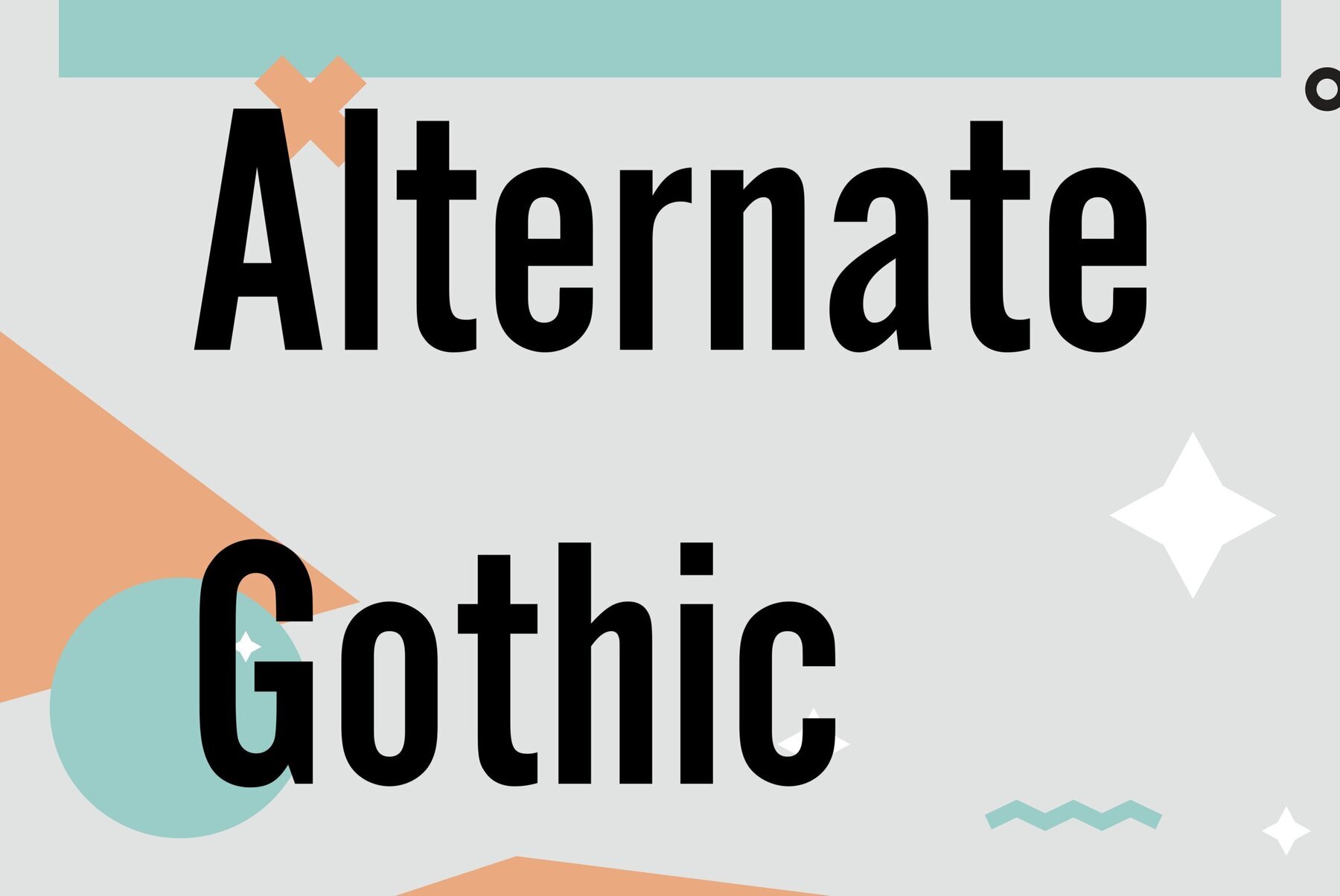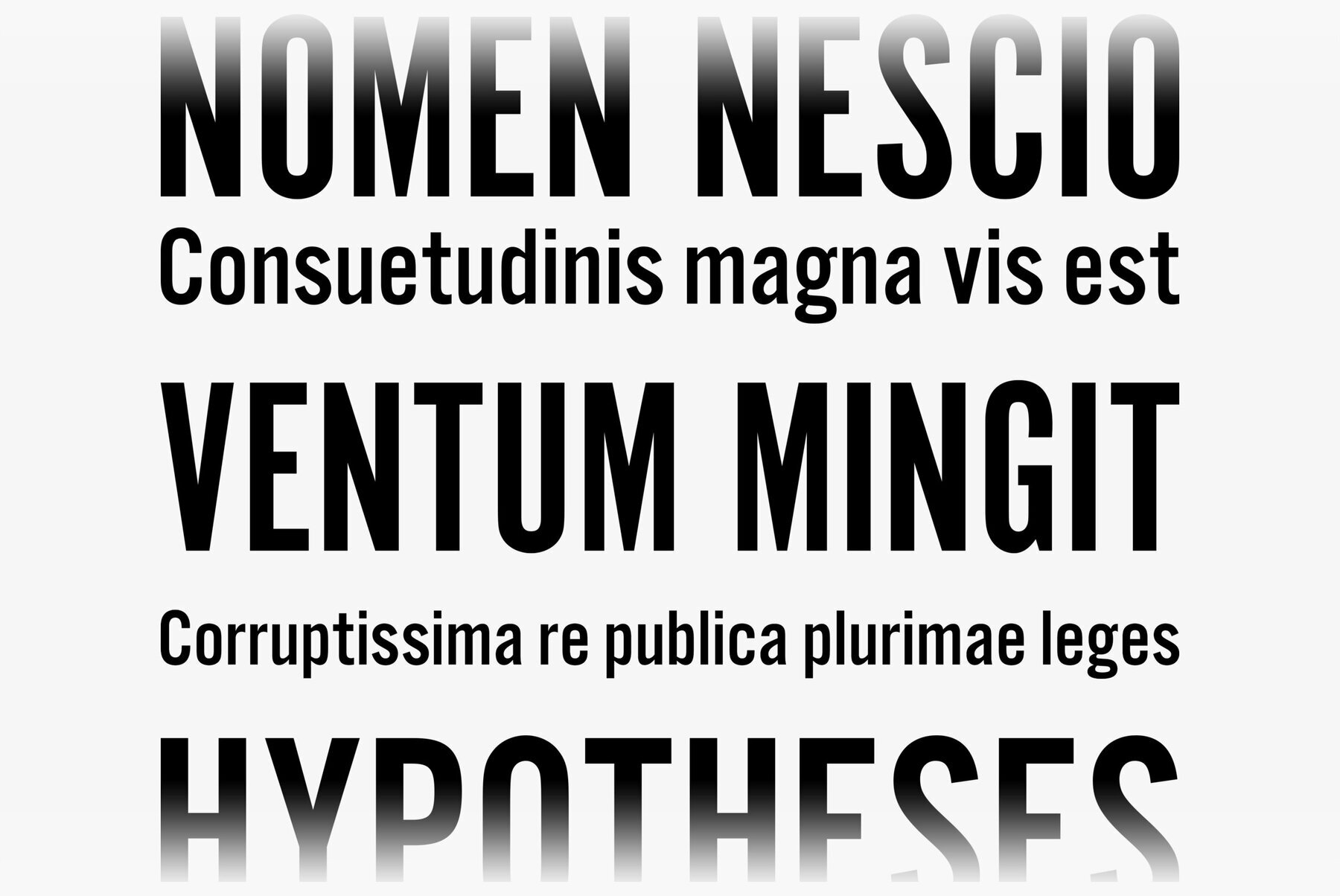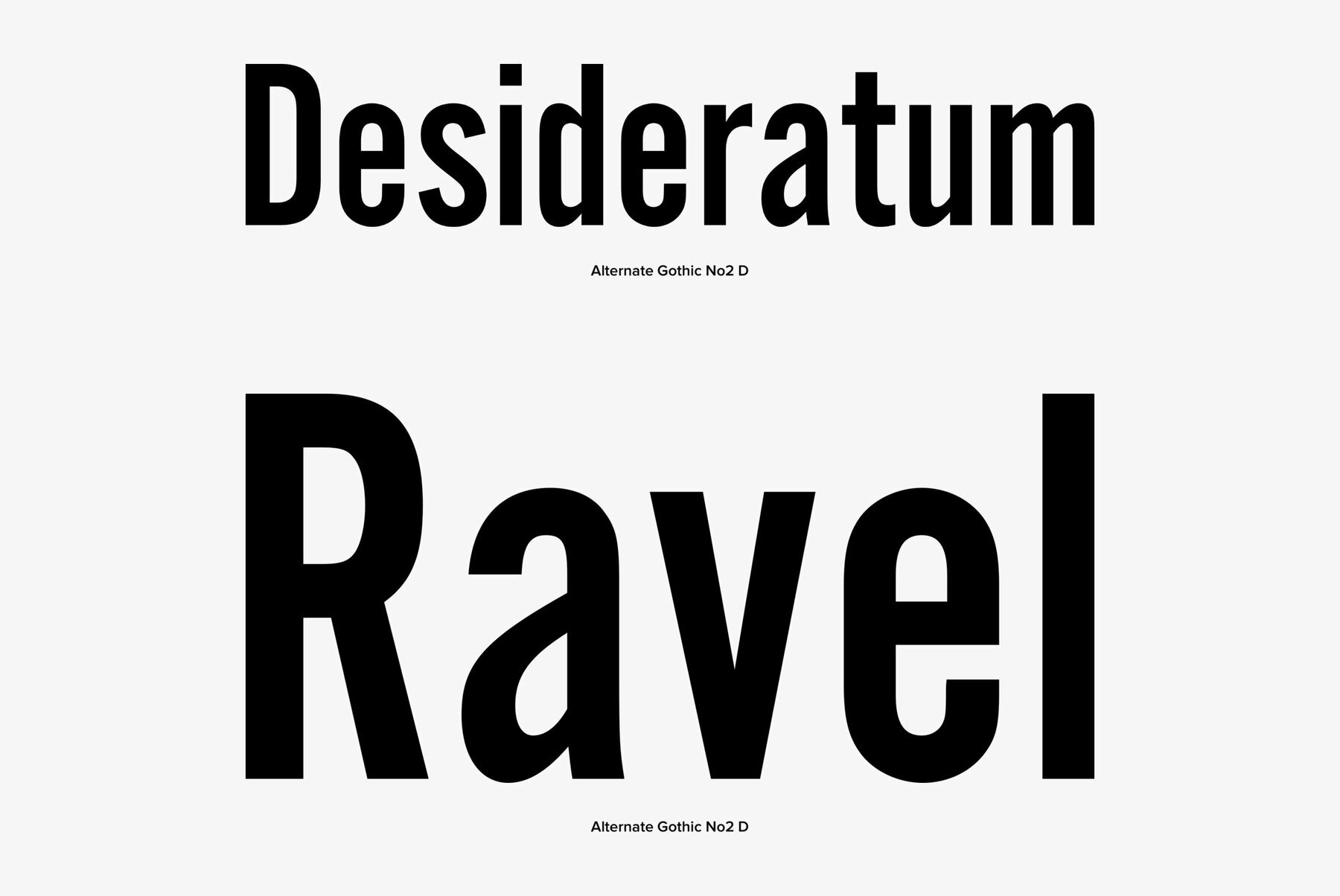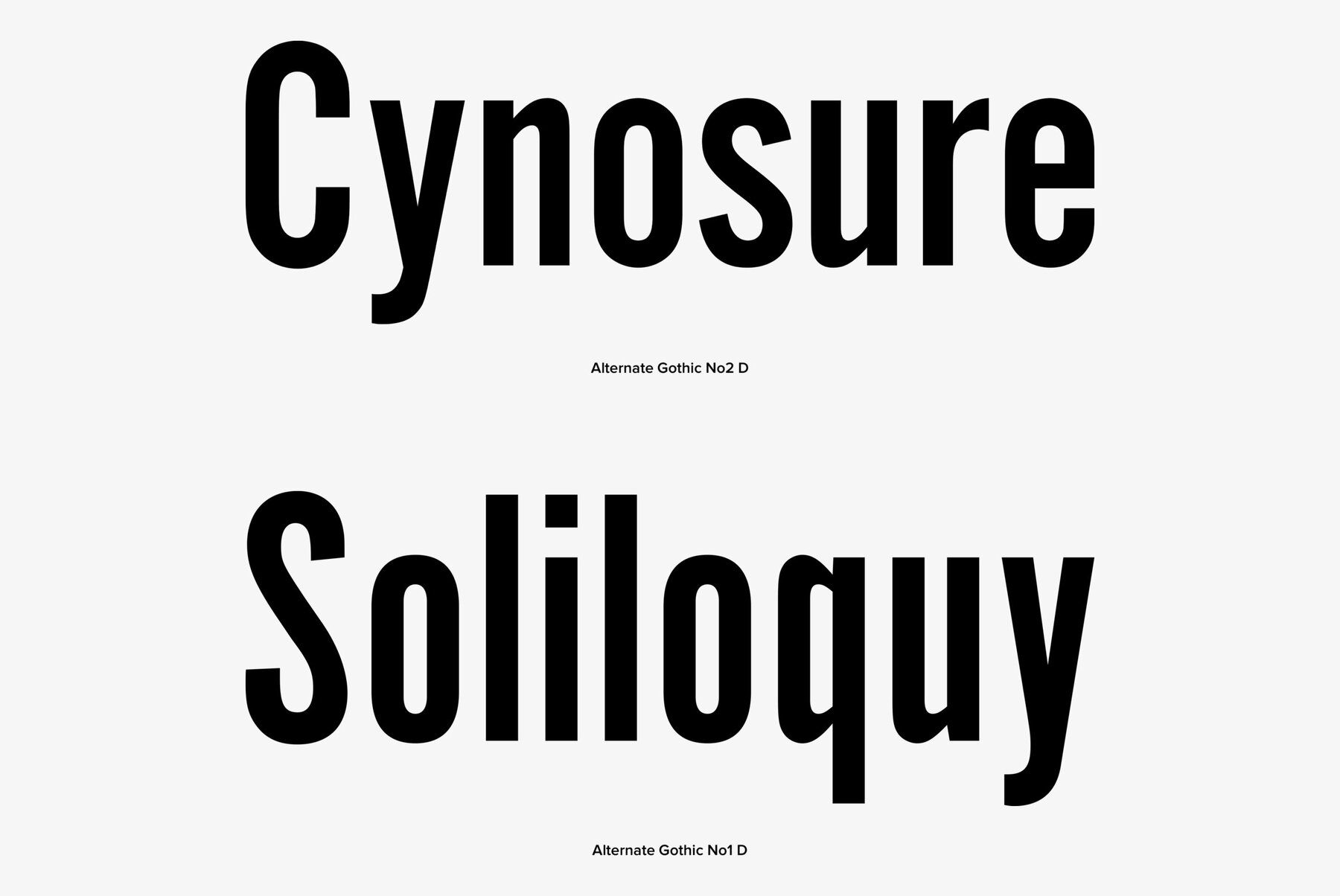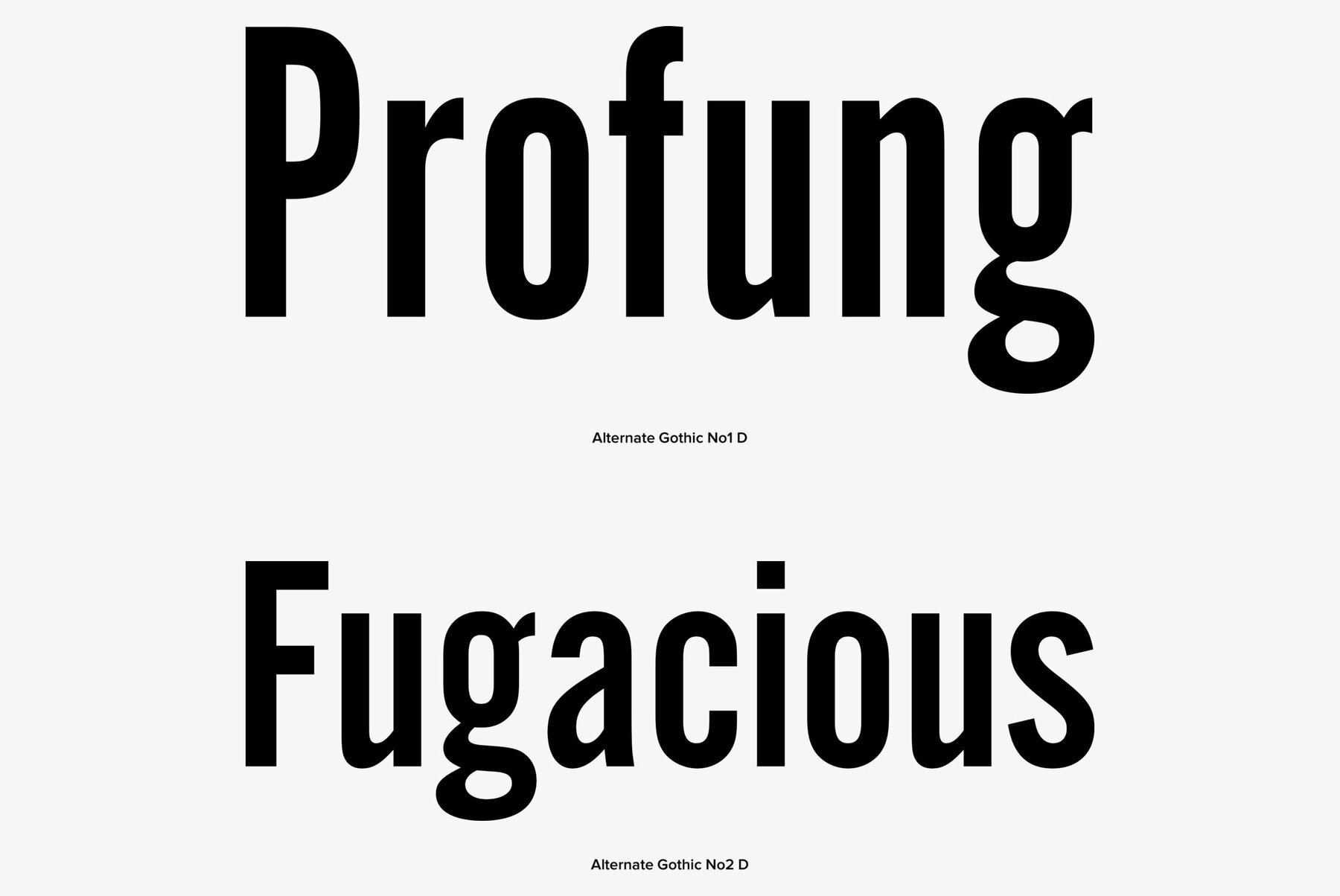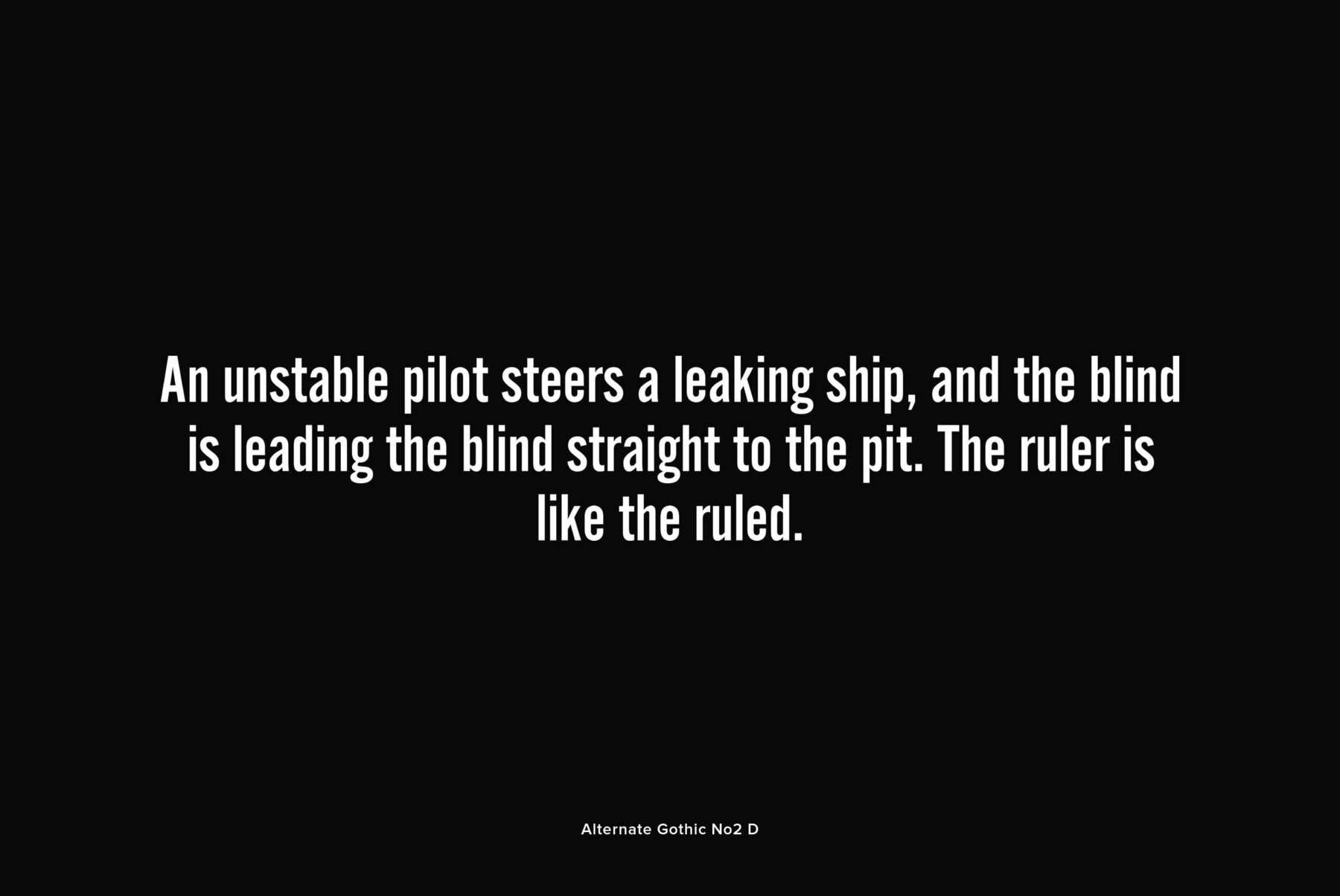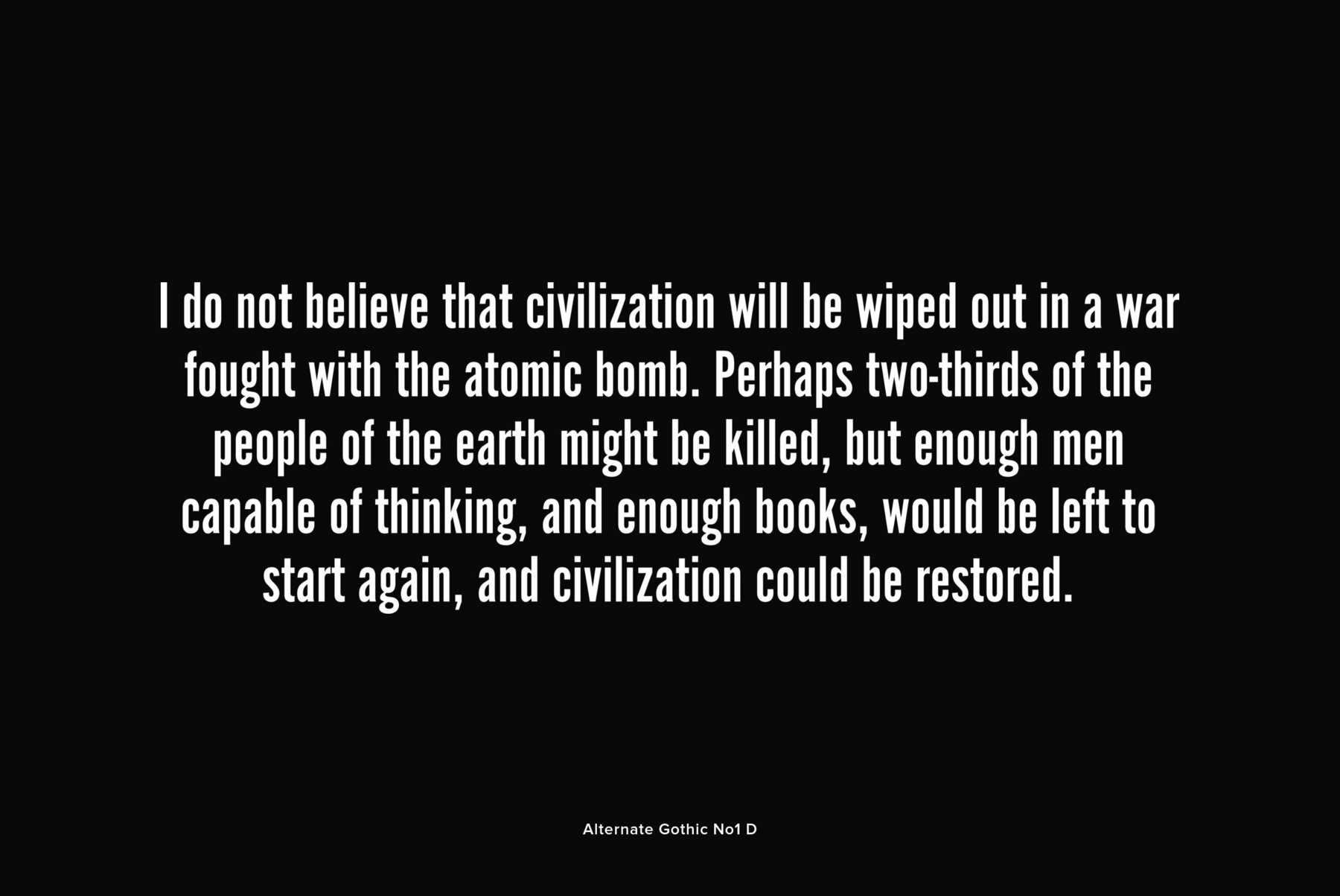
Alternate Gothic
Alternate Gothic was designed in 1903 by Morris Fuller Benton for American Type Founders (ATF). The idea was to provide several alternate widths of one design, namely Alternate Gothic No. 1, No. 2 and No. 3, to be more flexible with regard to different typographic tasks. All three styles are black and condensed, and thus work best for posters, headlines and advertisements.